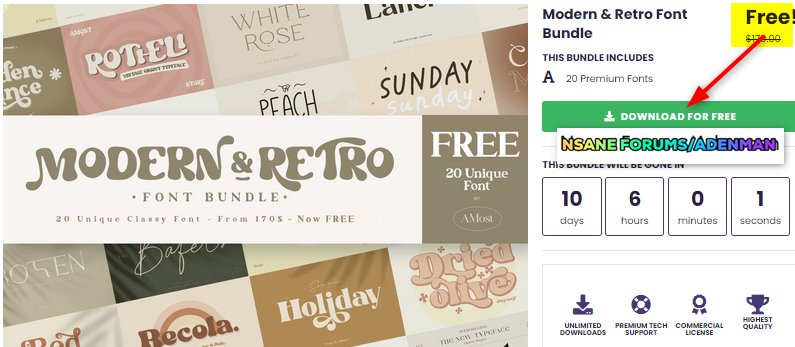
Adenman Posted May 2, 2022 Share Posted May 2, 2022 Modern & Retro Font Bundle – Free Commercial License – 20 Premium Fonts by AMost Store – for Windows & Mac OS X Creative typefaces to give your projects that perfect modern but retro feel. Get the Modern & Retro Font Bundle with a lifetime commercial license for free! Do you love the retro feel of old-school fonts? Do you want to spice up your modern projects with a retro flair? Are you looking for fonts to spice up your projects? Then check out this bundle of 20 fabulous and retro-style fonts by AMost Store! The Modern & Retro Font Bundle features 20 fabulous and retro-style fonts – perfect to bring that funky look to your creative projects! The fonts are compatible with your software, as well as for cutting machines; Cricut, Silhouette and more. Get these high-quality fonts for free now, regular price is $170! Giveaway link : https://www.creativefabrica.com/product/modern-retro-font-bundle/ https://www.creativefabrica.com/product/modern-retro-font-bundle/ref/3827/ https://thesoftware.shop/the-modern-retro-font-bundle-discount-sale/ Link to comment Share on other sites More sharing options...